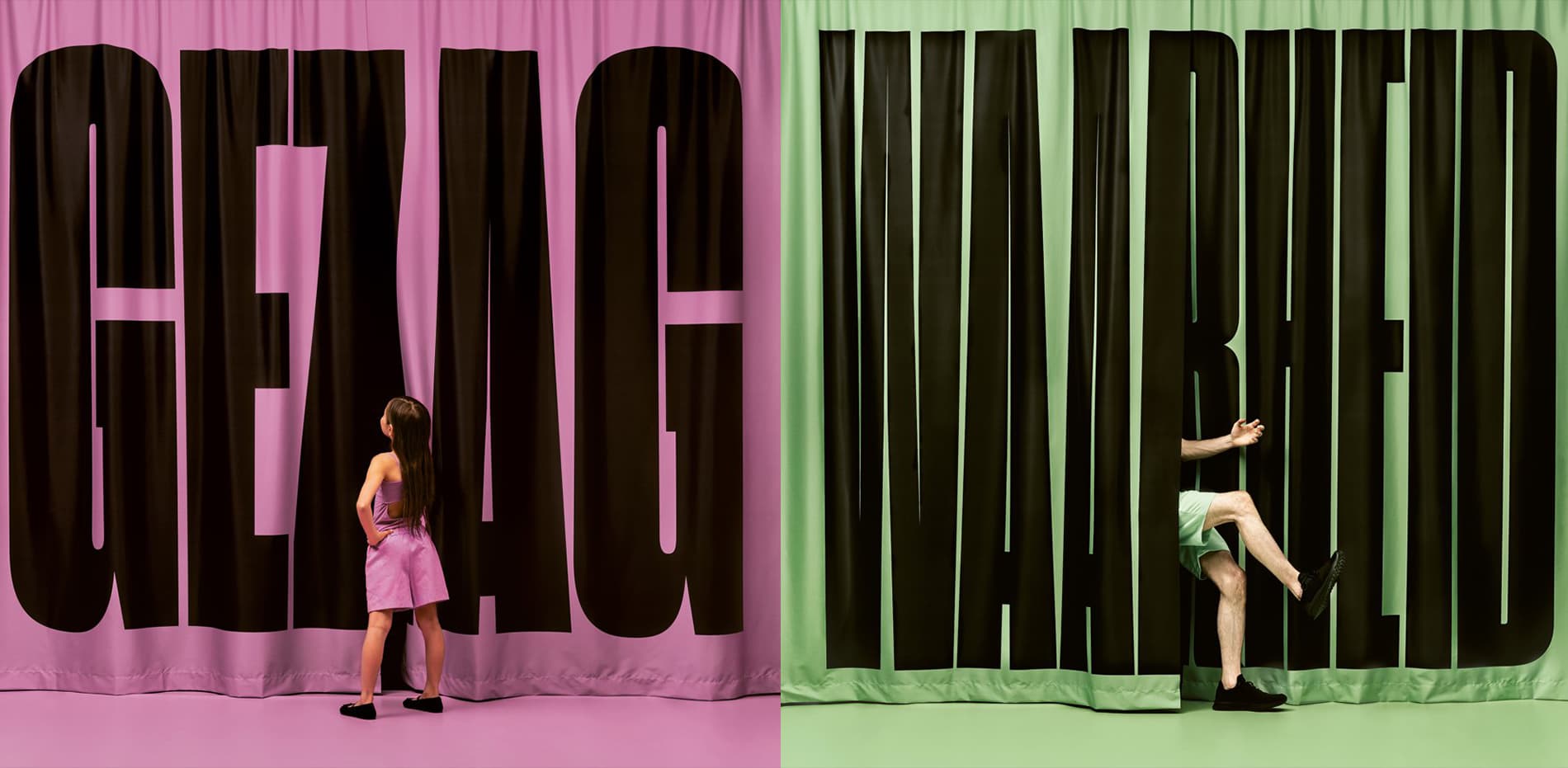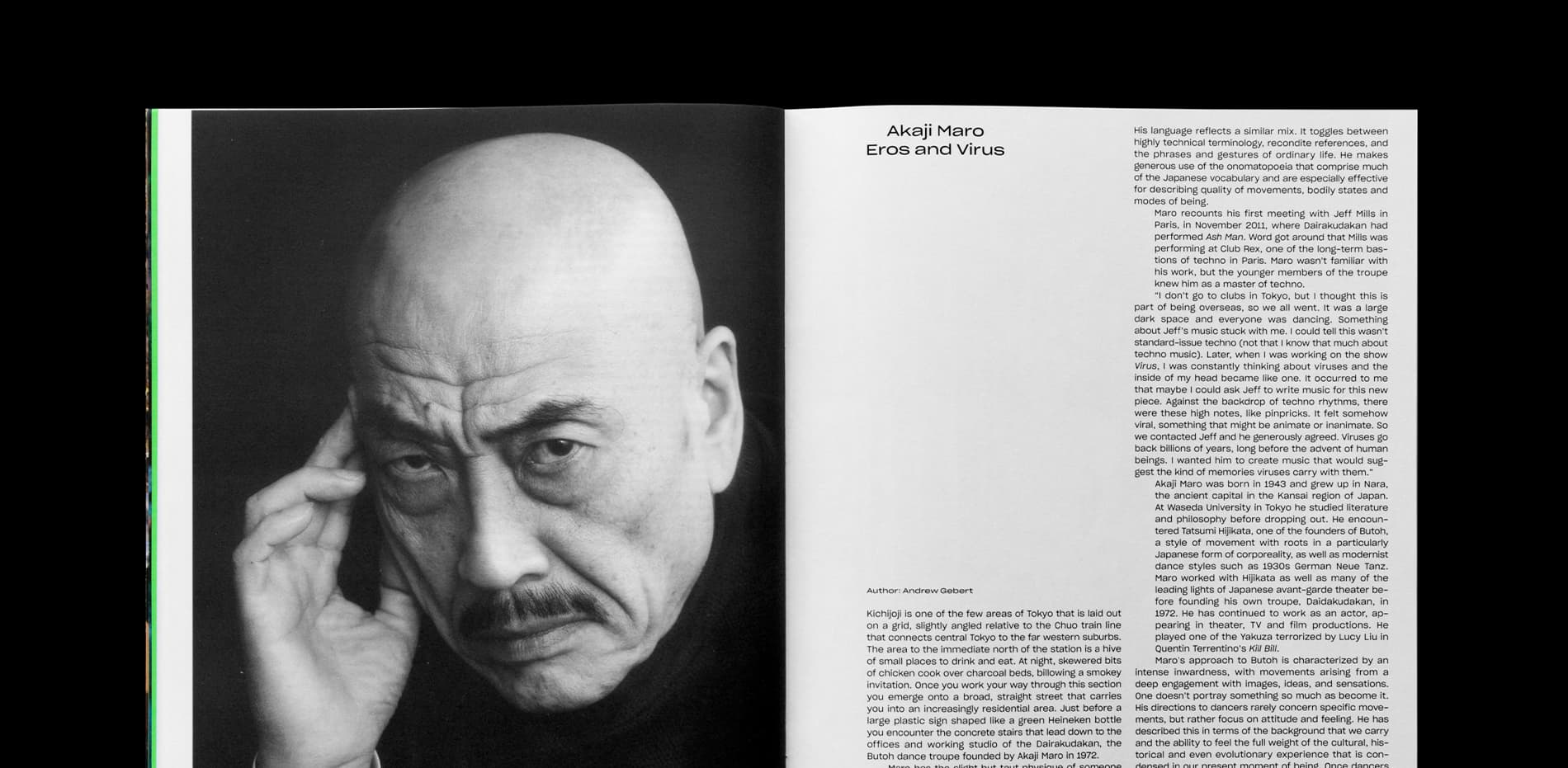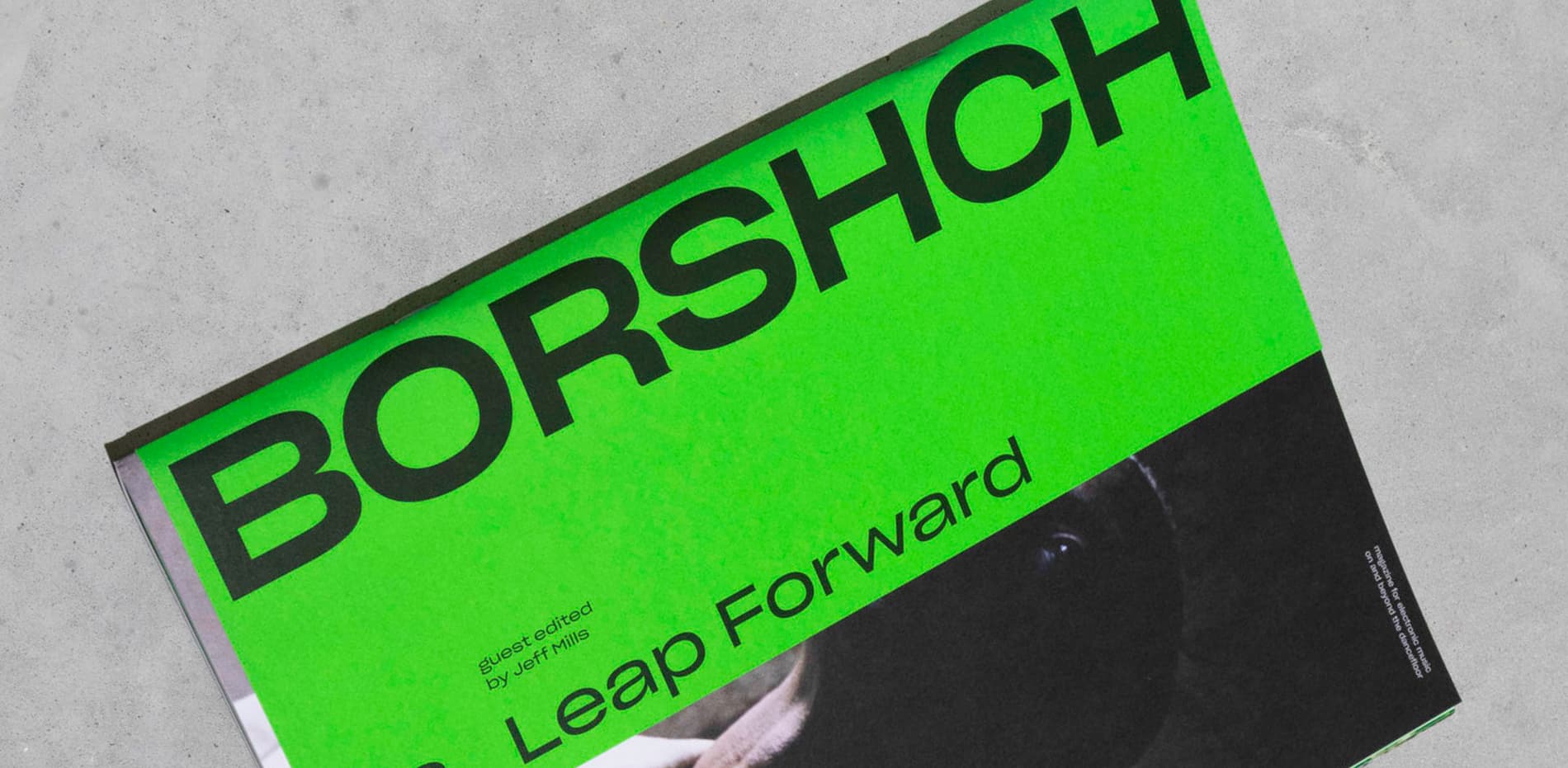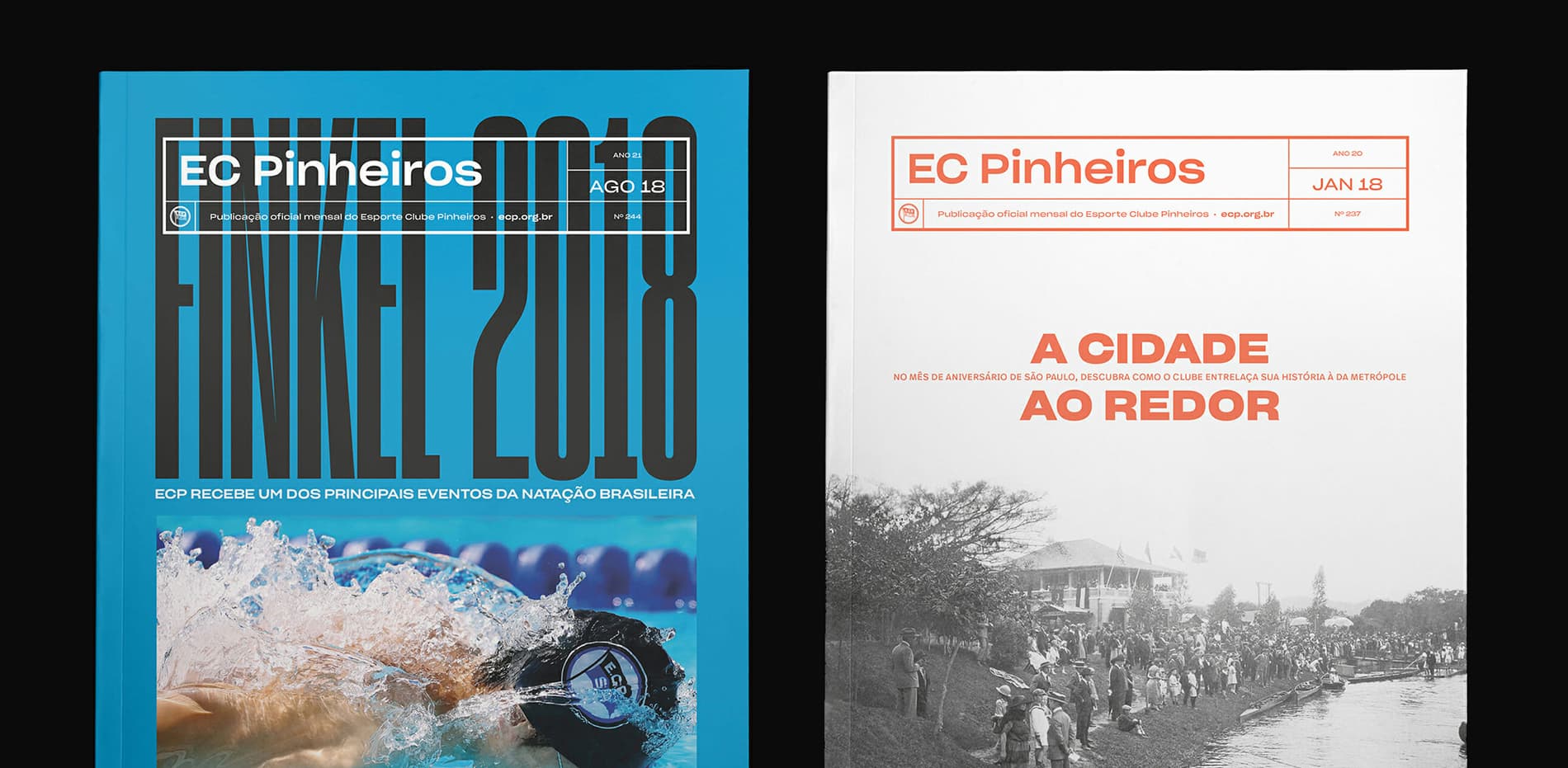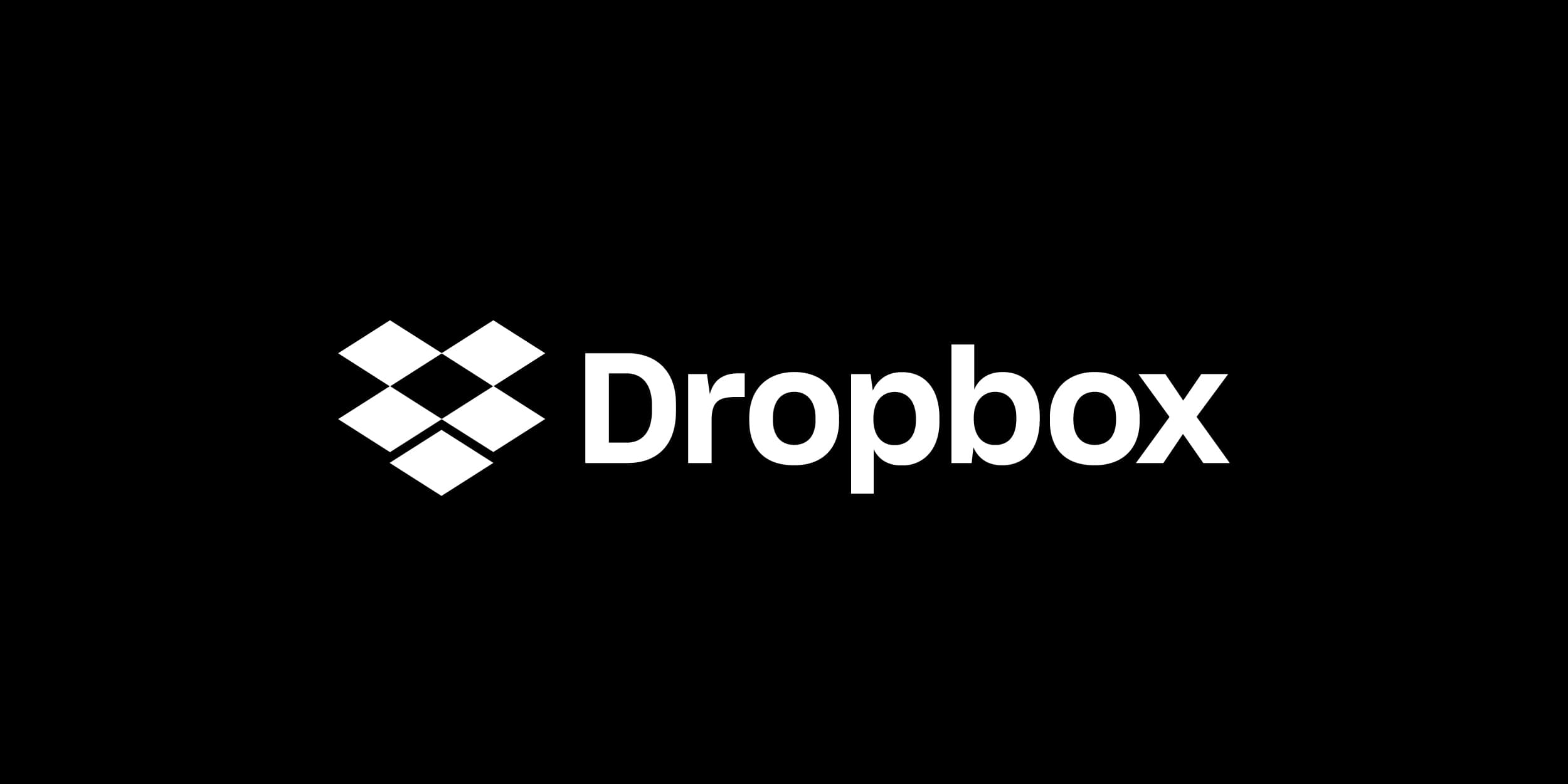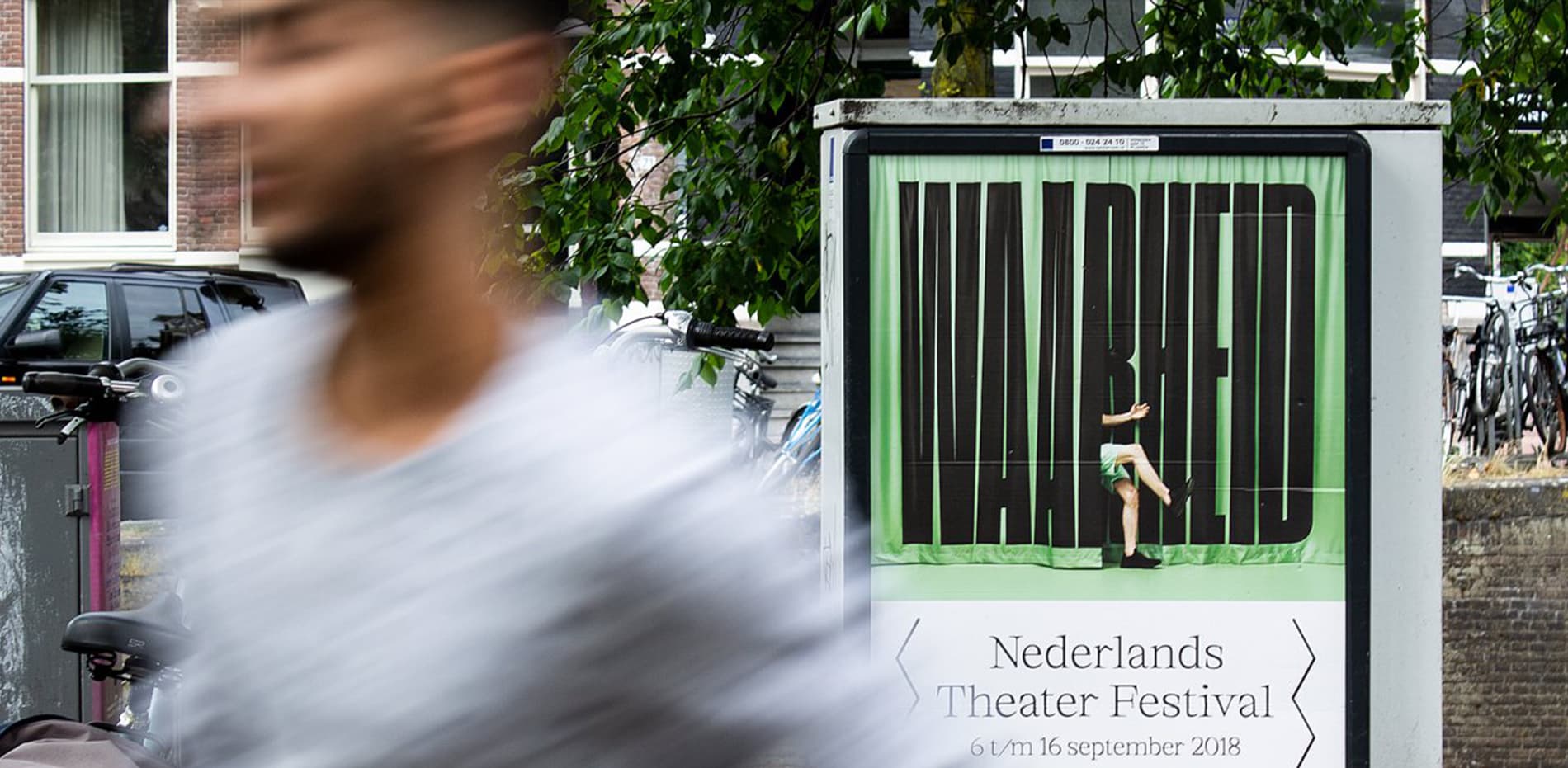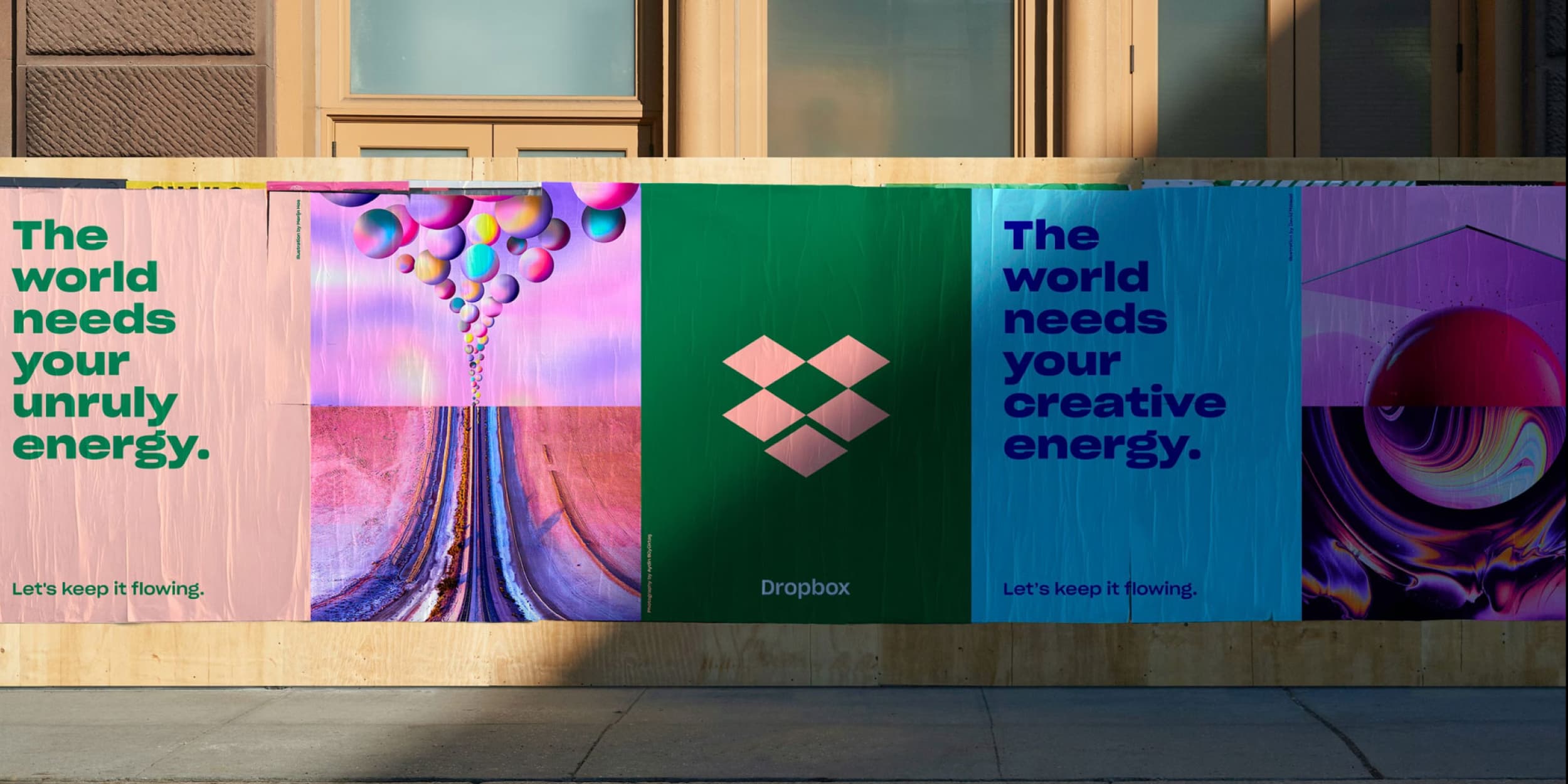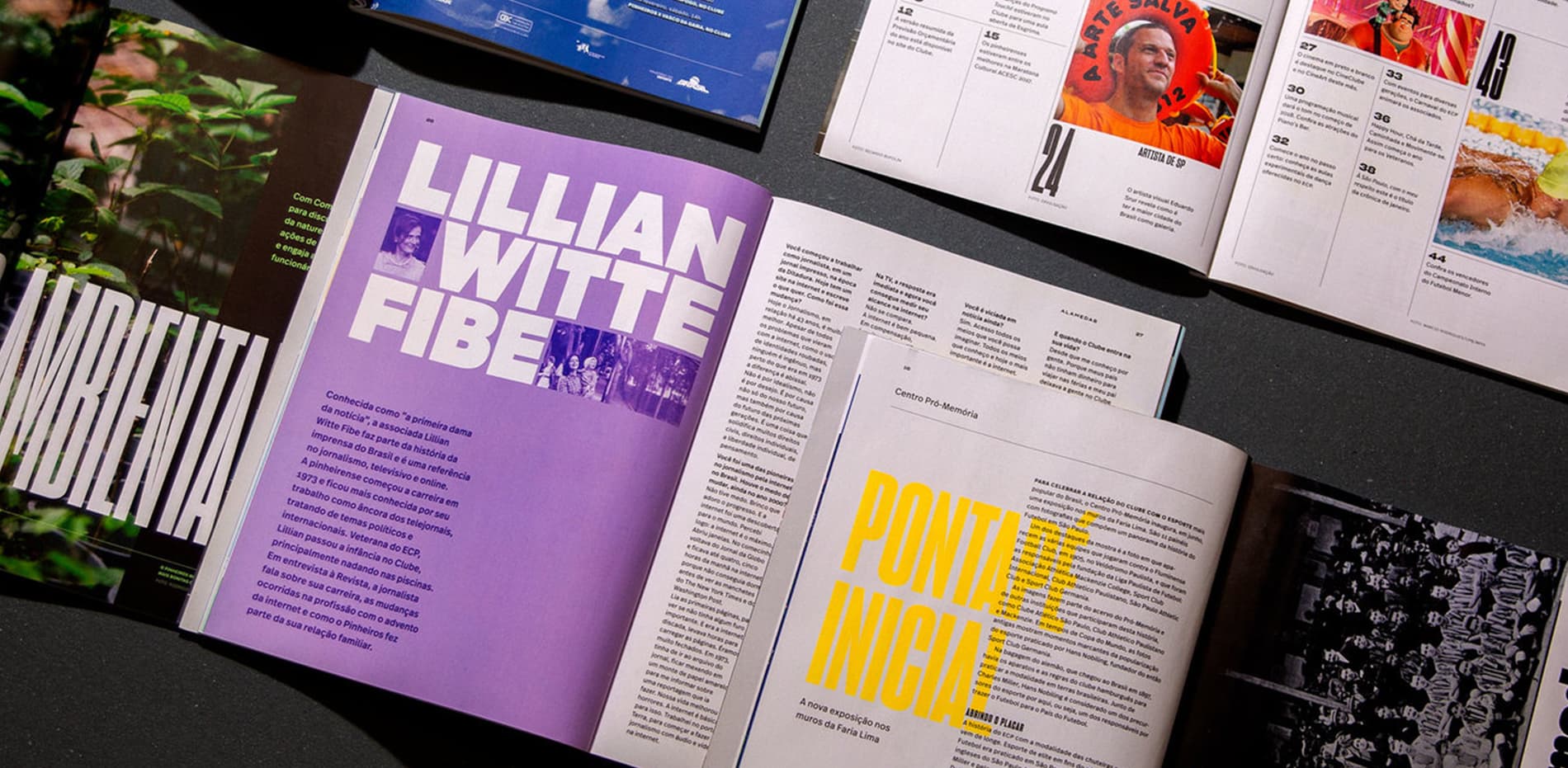
Sharp Grotesk Pan Euro
Sharp Grotesk Global is Sharp Type’s largest superfamily to date. It’s our most comprehensive Latin typeface, with twelve weights and seven widths in Roman and Italic styles. Sharp Grotesk now also represents our first multi-script release, with extensions in Greek, Cyrillic, Hangul, and Thai. Finally, a Latin variable font rounds out the collection. What began as a hand-drawn lettering poster in 2011 is arguably our most versatile typeface, endlessly adaptable and scalable. It’s the culmination of years of work, and it’s a prelude for what’s to come at Sharp Type.
Sharp Grotesk Weight and Width Spectrum
Sharp Grotesk Weight and Width Spectrum.
Mixed Styles